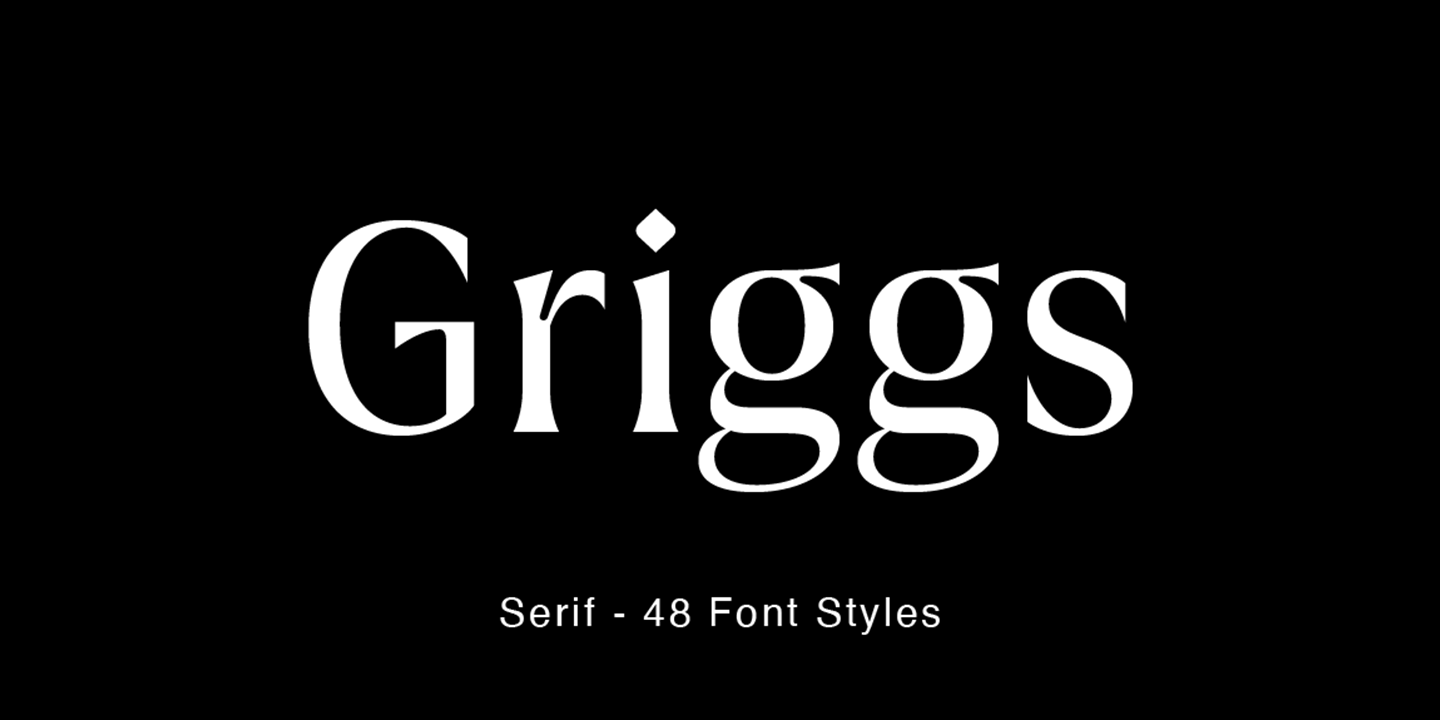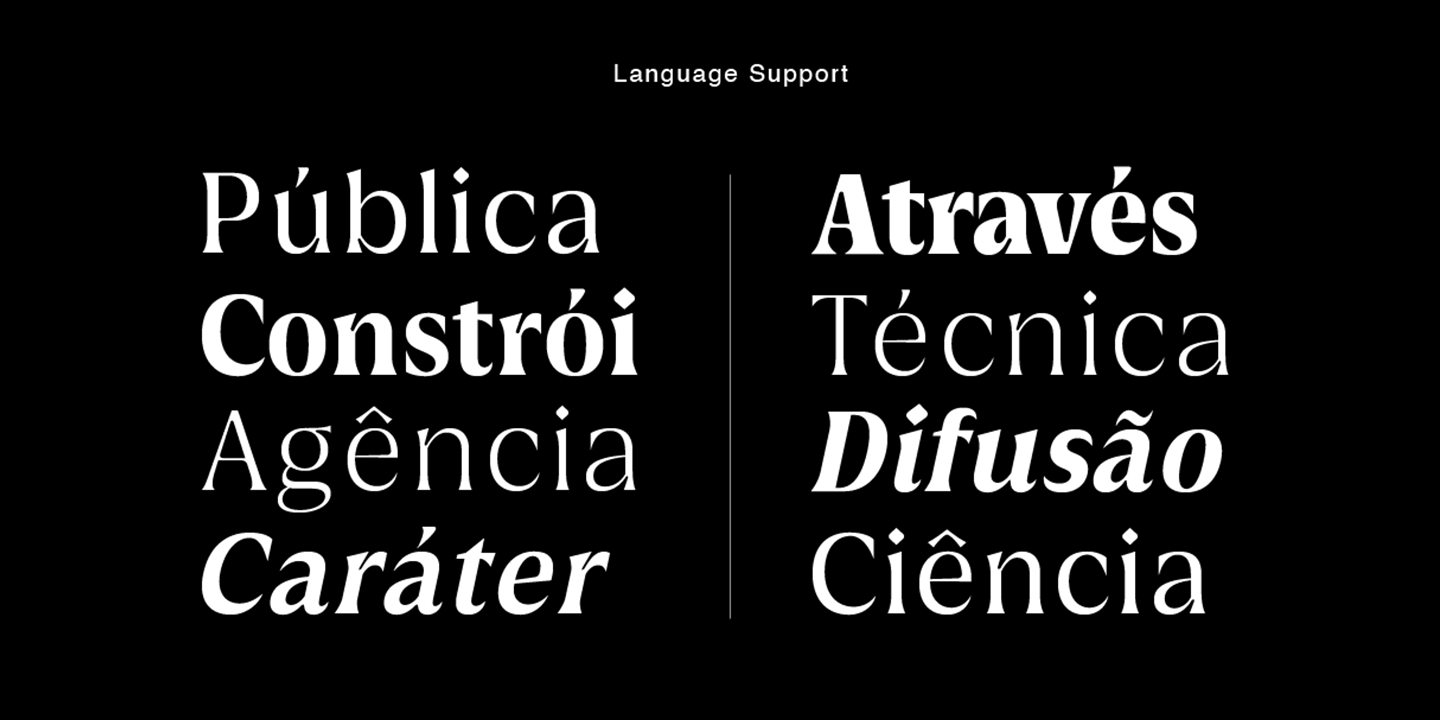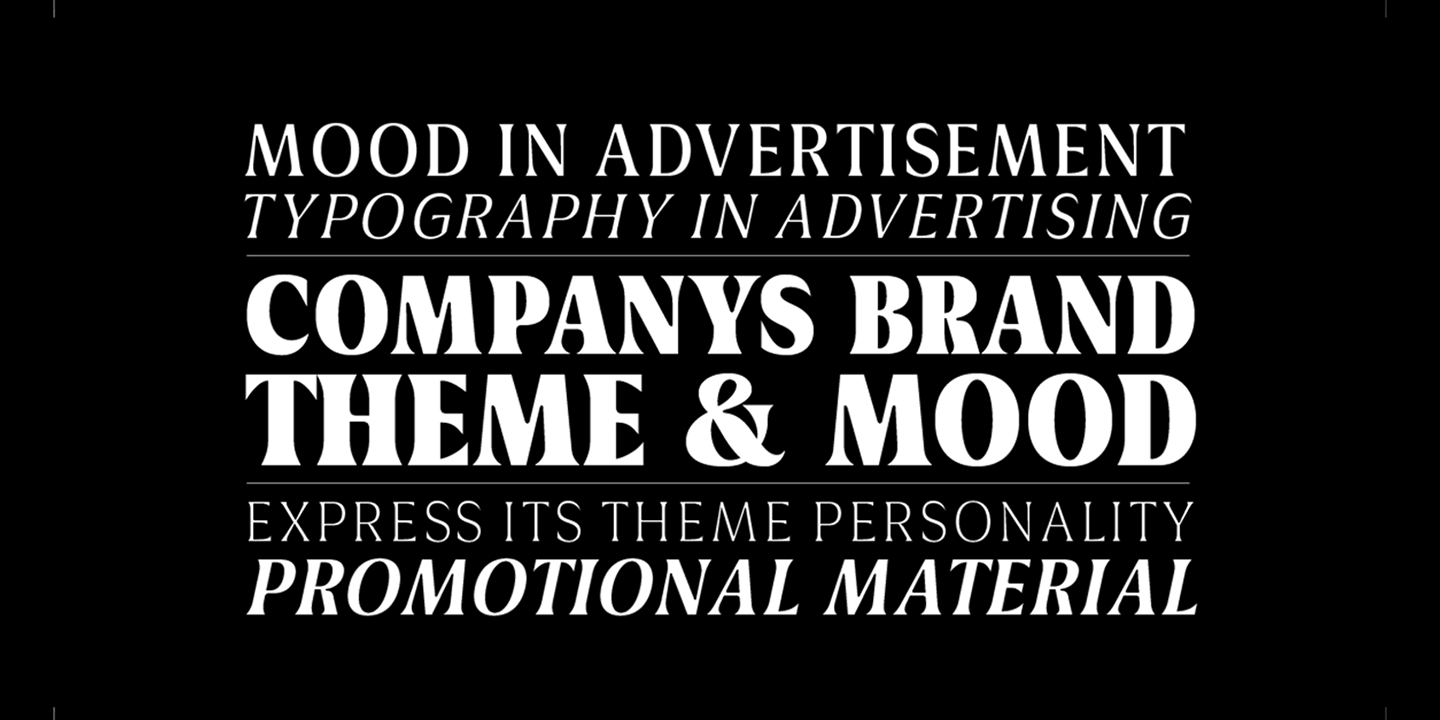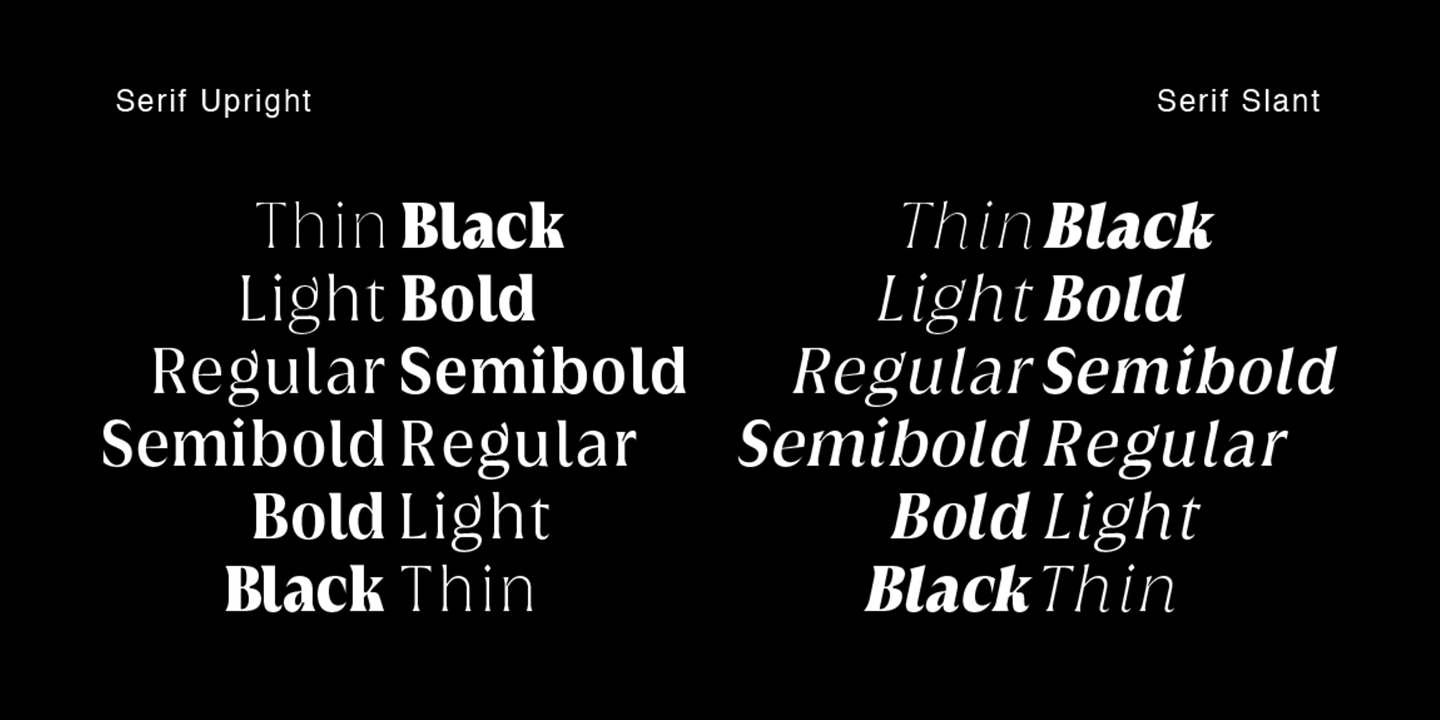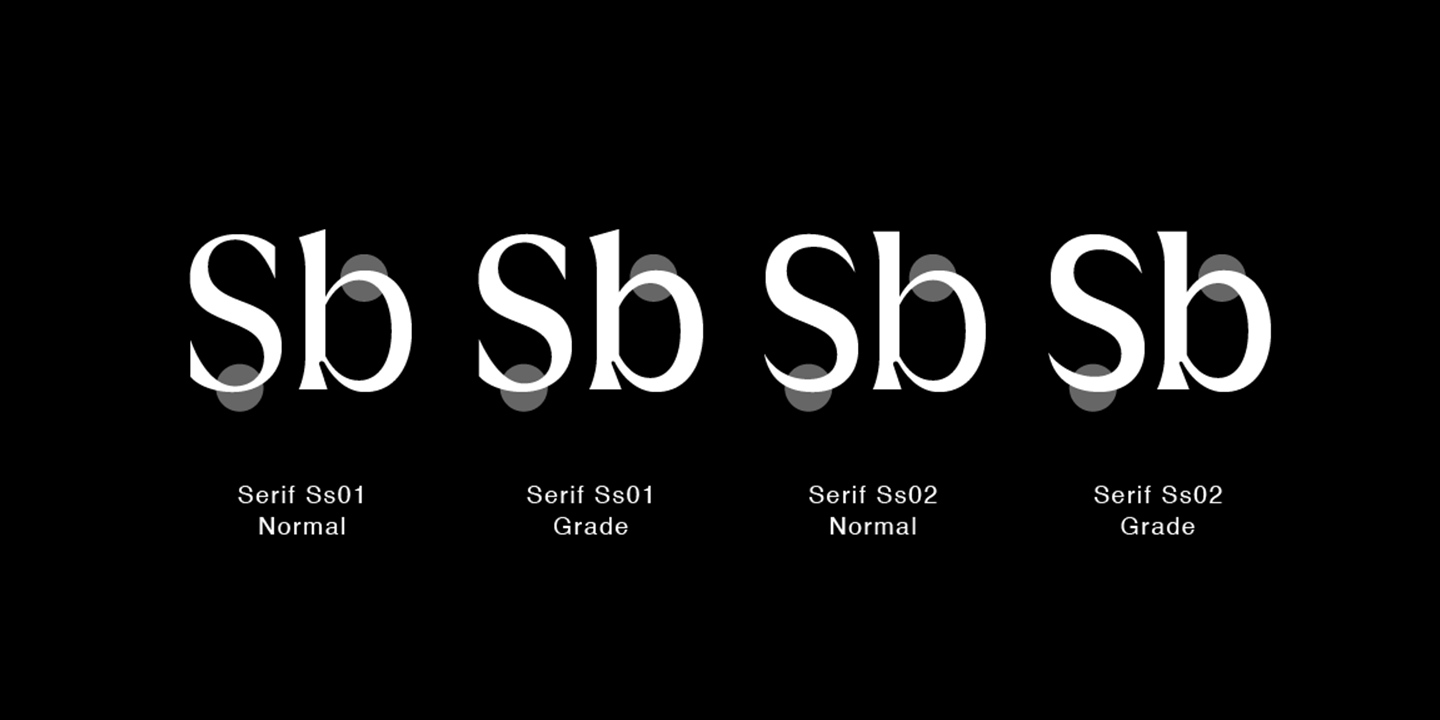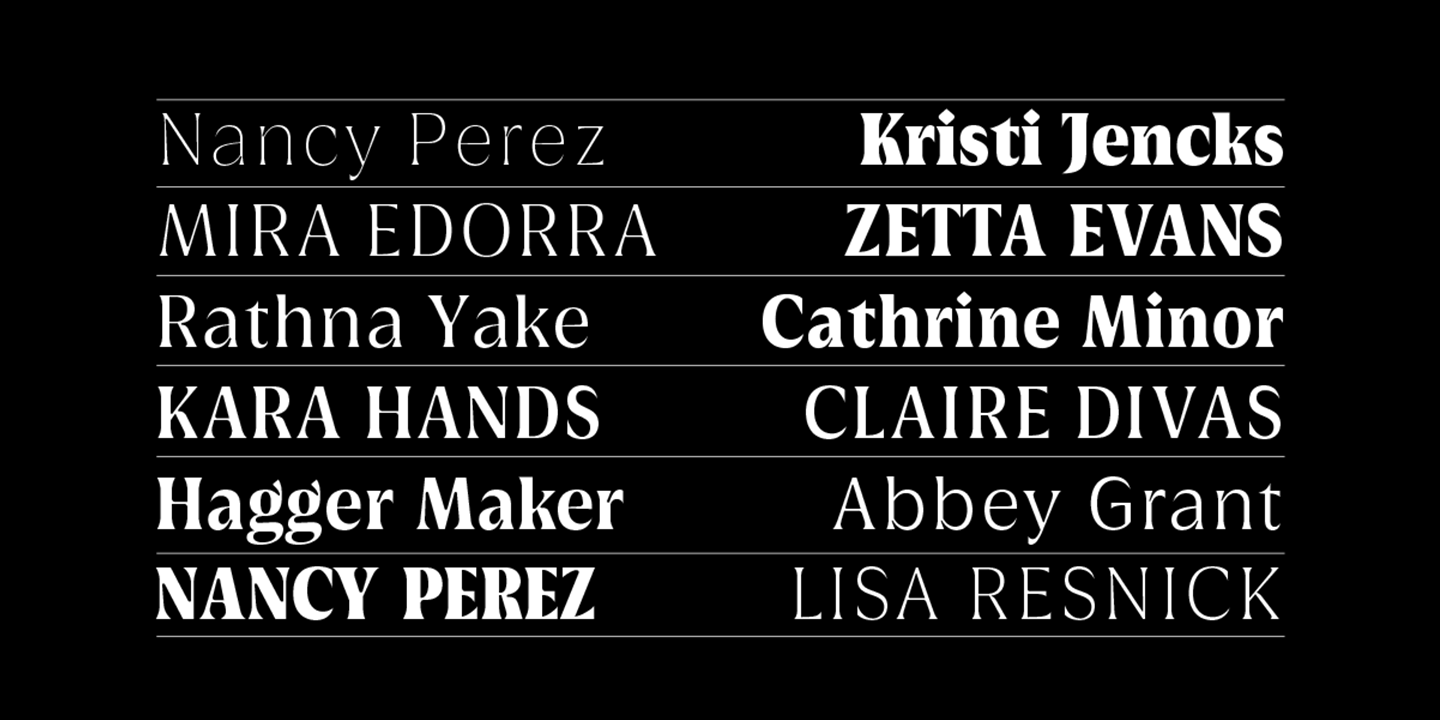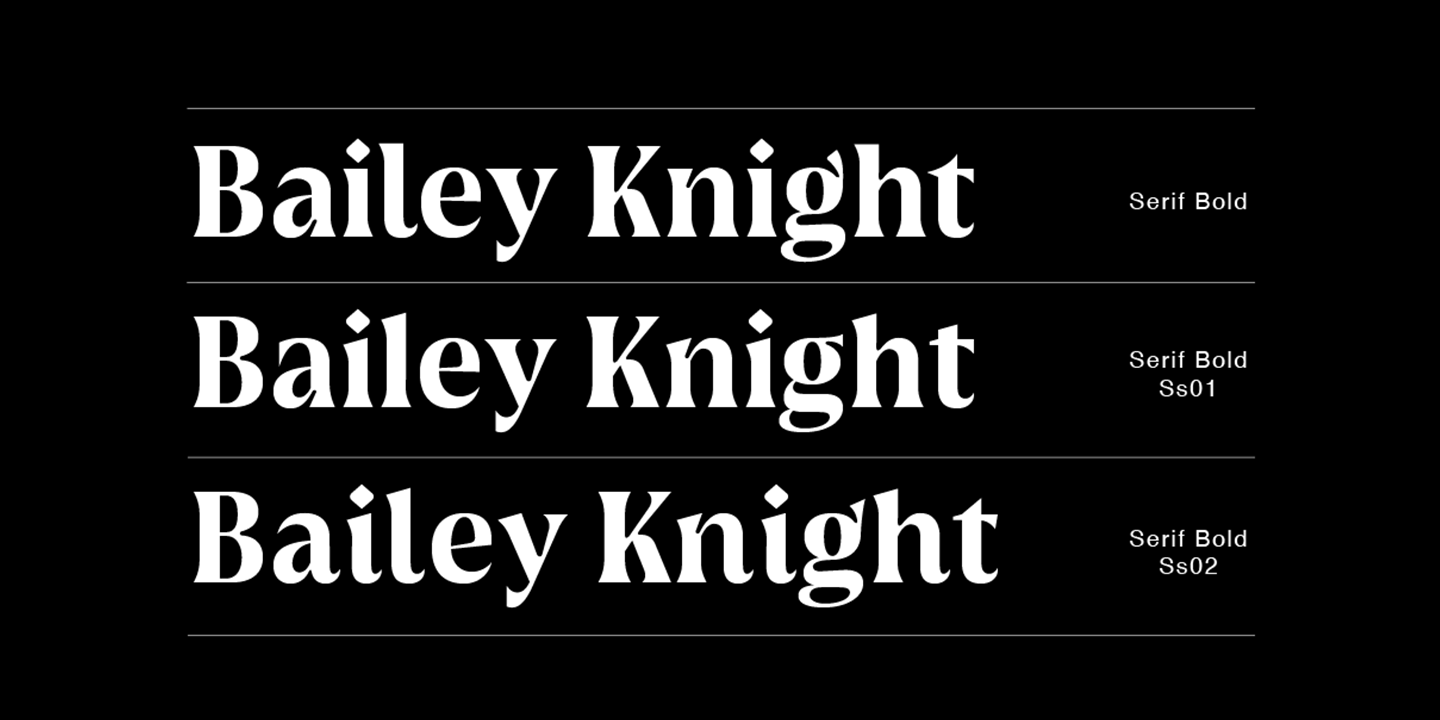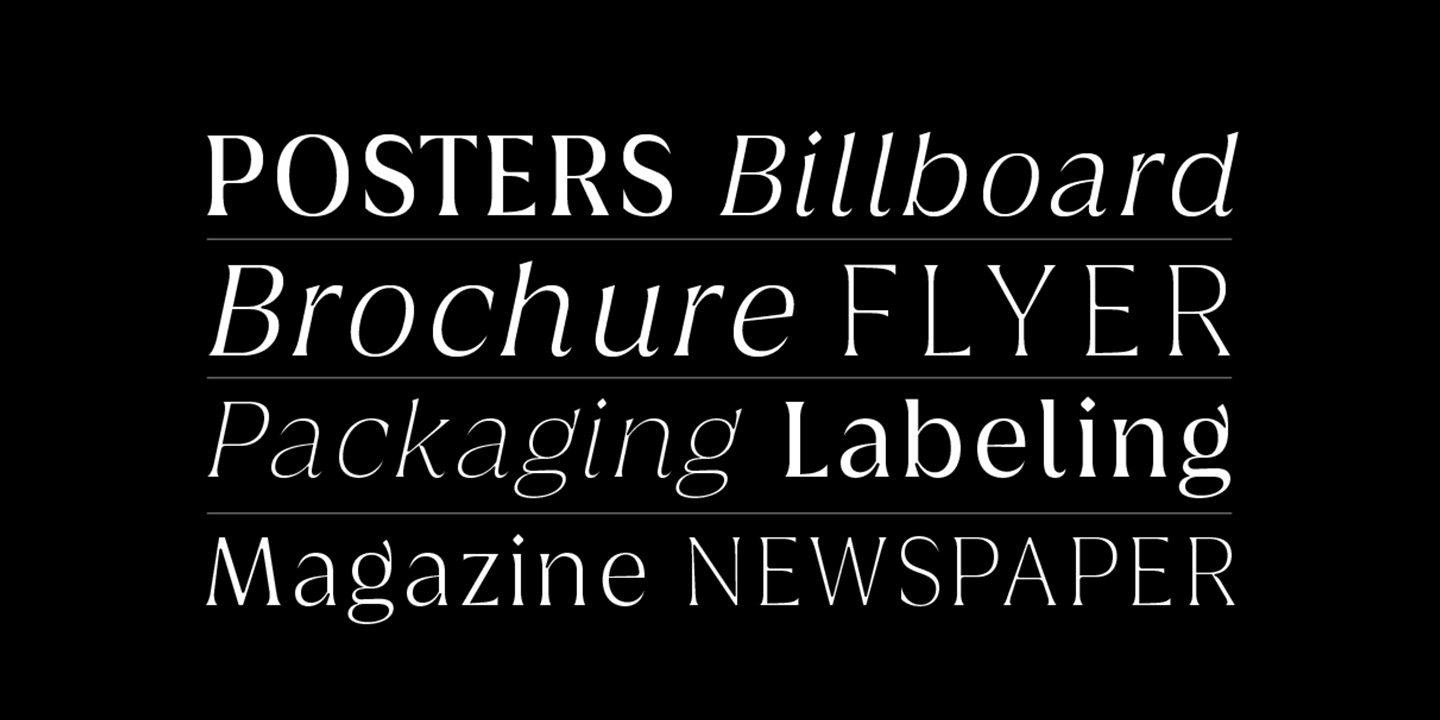
Griggs Serif
Griggs Serif is a high contrast, inktraps, sharp form, and clean cuts, to convey the impression of opulence, elegance with a distinctive look. Each typeface contains with a warm personality and contemporary look. With different stylistic sets, you can choose the best-desired result for your design. You can change the feel of your design from more delicate, to bold to its sharpest most style. It’s a brilliant choice for branding, identity design, editorial design, logo design, display and packaging design etc.
Typeface Features:
• 325 Glyphs
• 6 Weight: Thin, Light, Regular, Semi Bold, Bold, Black
• Total 48 Styles + Slant
• Opentype Features: Stylistic Set 1, Stylistic Set 2
• Latin Language support including
• Kerning